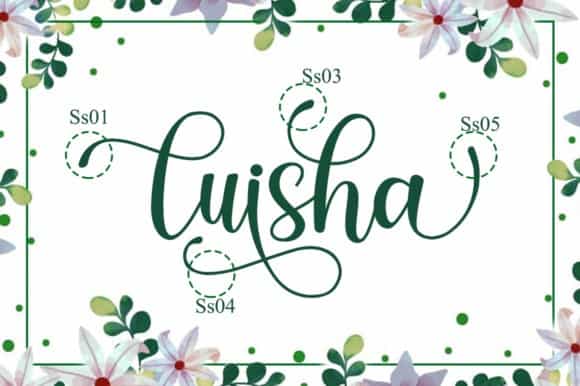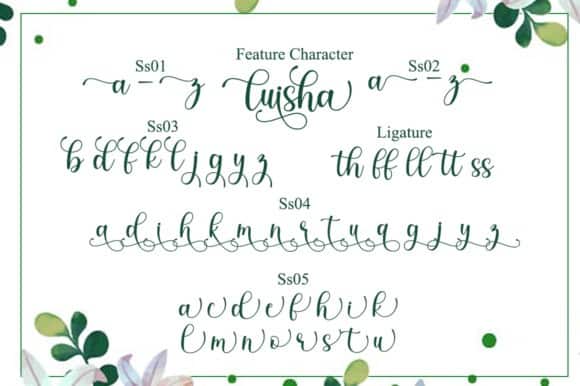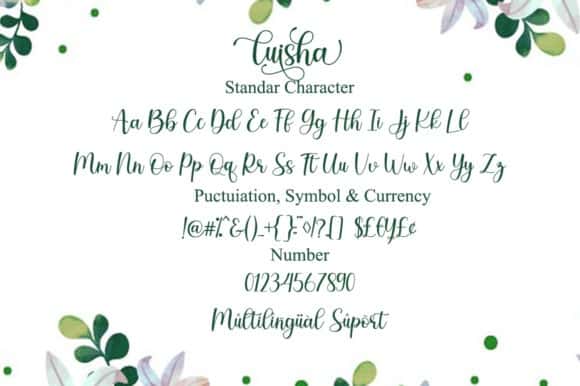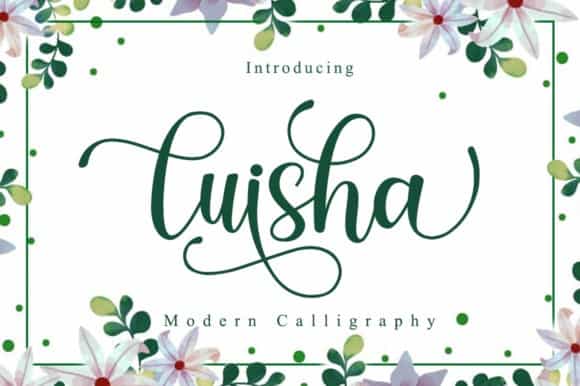
Luisha Script Font
Luisha Script Font is a modern script font with calligraphy style. It’s handcrafted, with caps and lowercase letters, numbers, basic punctuation, and lots of ligatures. It is design and shared by Manjalistudio. It’s a fancy, contemporary script font. It features gorgeous swashes and ligatures that make this script incredibly versatile. Whether you’re looking for fonts for Instagram or calligraphy scripts for DIY projects, It’s will turn any creative idea into a true piece of art!